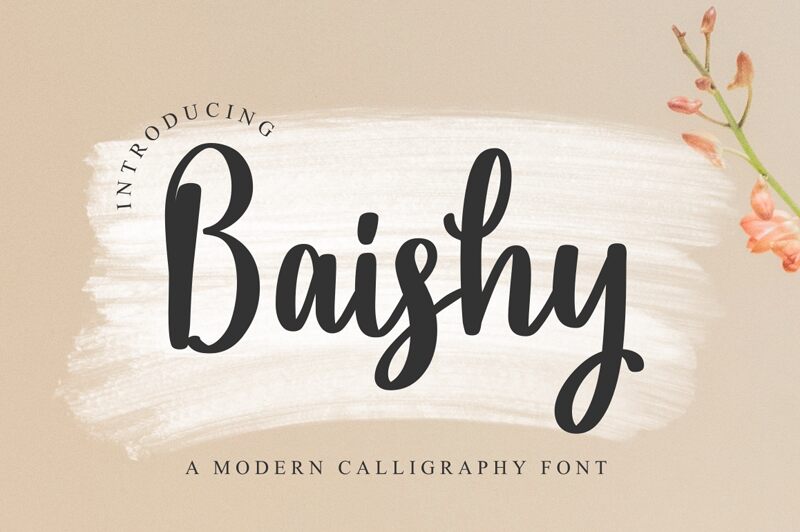
Say hello to Baishy, the semi-light and condensed handwritten font designed by Makashi. This versatile font is perfect for a range of projects, from modern wedding invitations to stylish product packaging. Its flowing curves and elegant strokes make it ideal for fashion or beauty branding, while its playful nature makes it suitable for children's book covers or whimsical greeting cards. Whether you're designing a logo or creating social media graphics, Baishy is sure to add a touch of uniqueness and sophistication to your project. Try it out today and see the magic unfold!